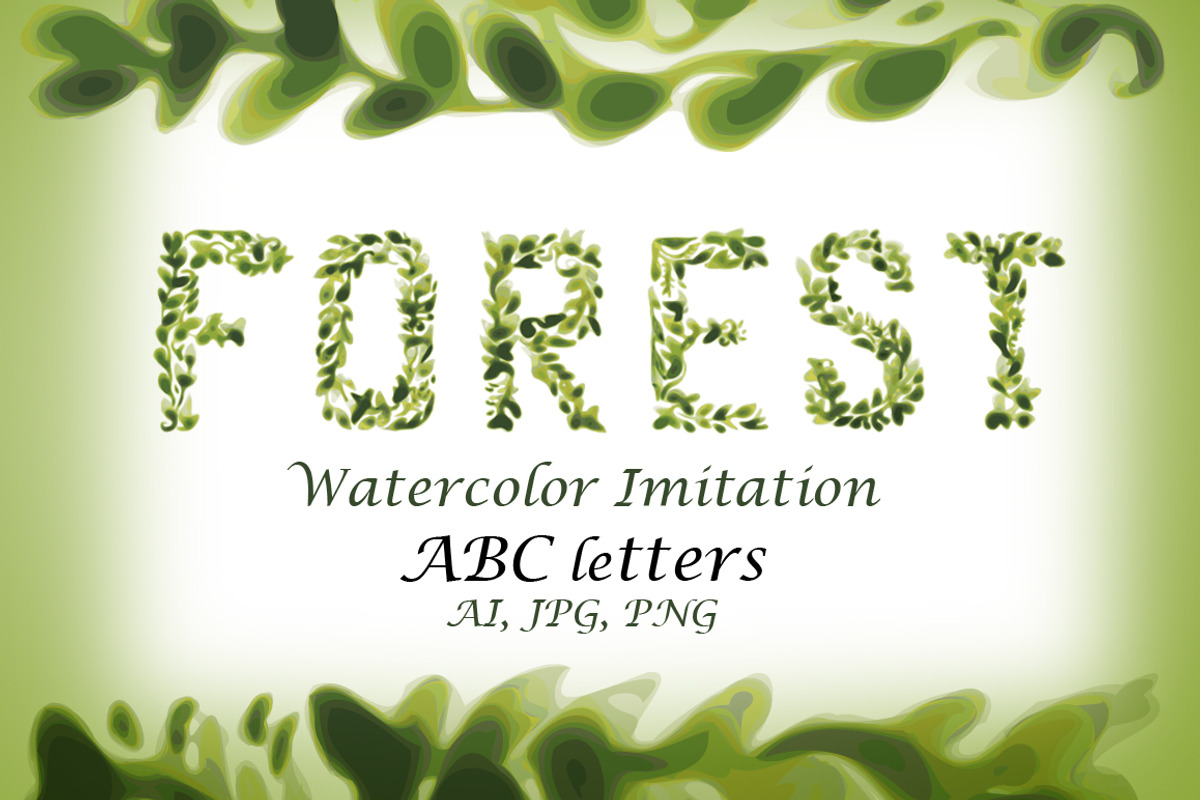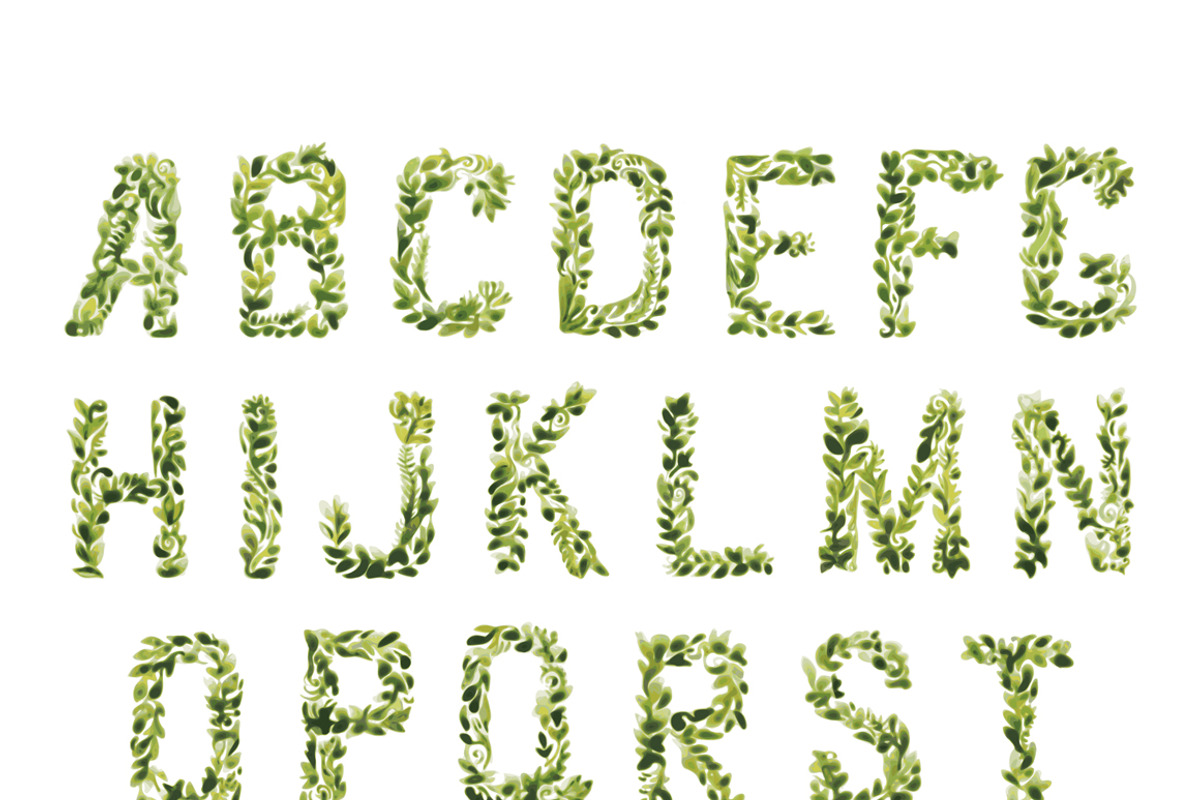
Foliage Watercolor Vector Font
This foliage decorative green font seems like watercolor painting but it is good effected vector imitation. These letters easy to combine and you can use letters for any design, cards, flyers, titles etc.